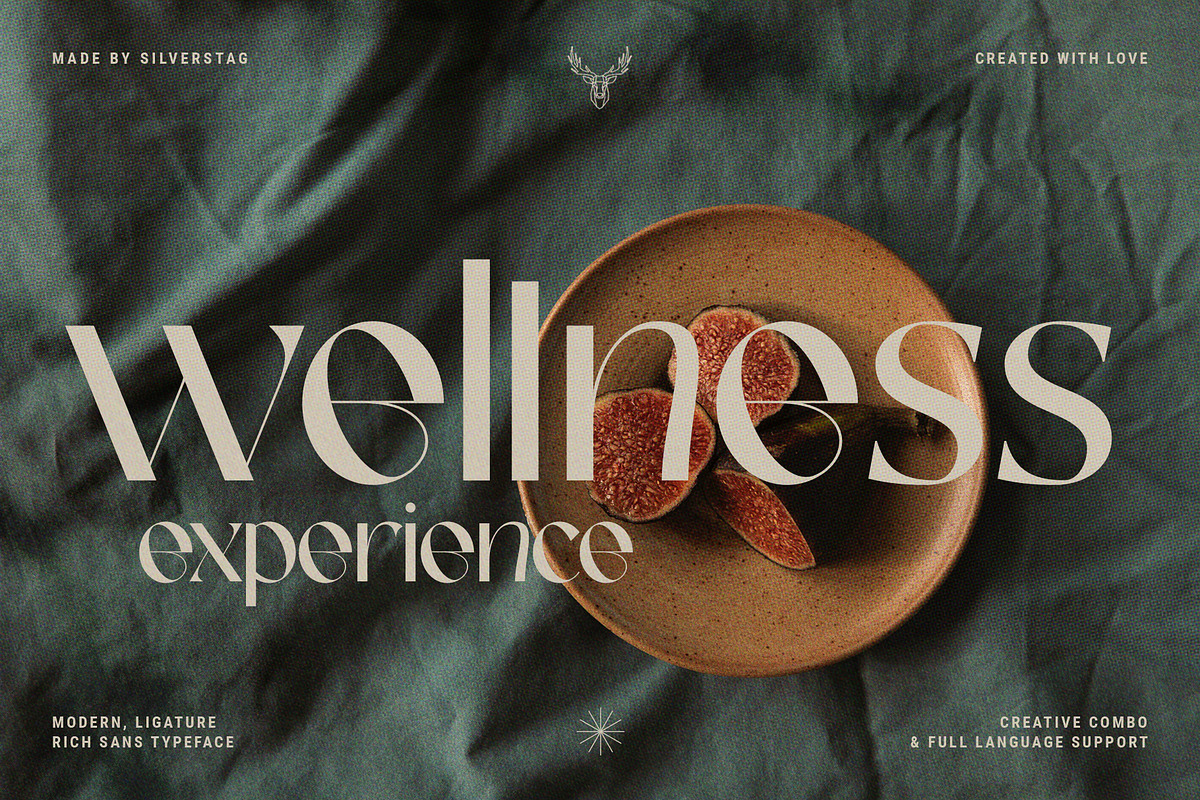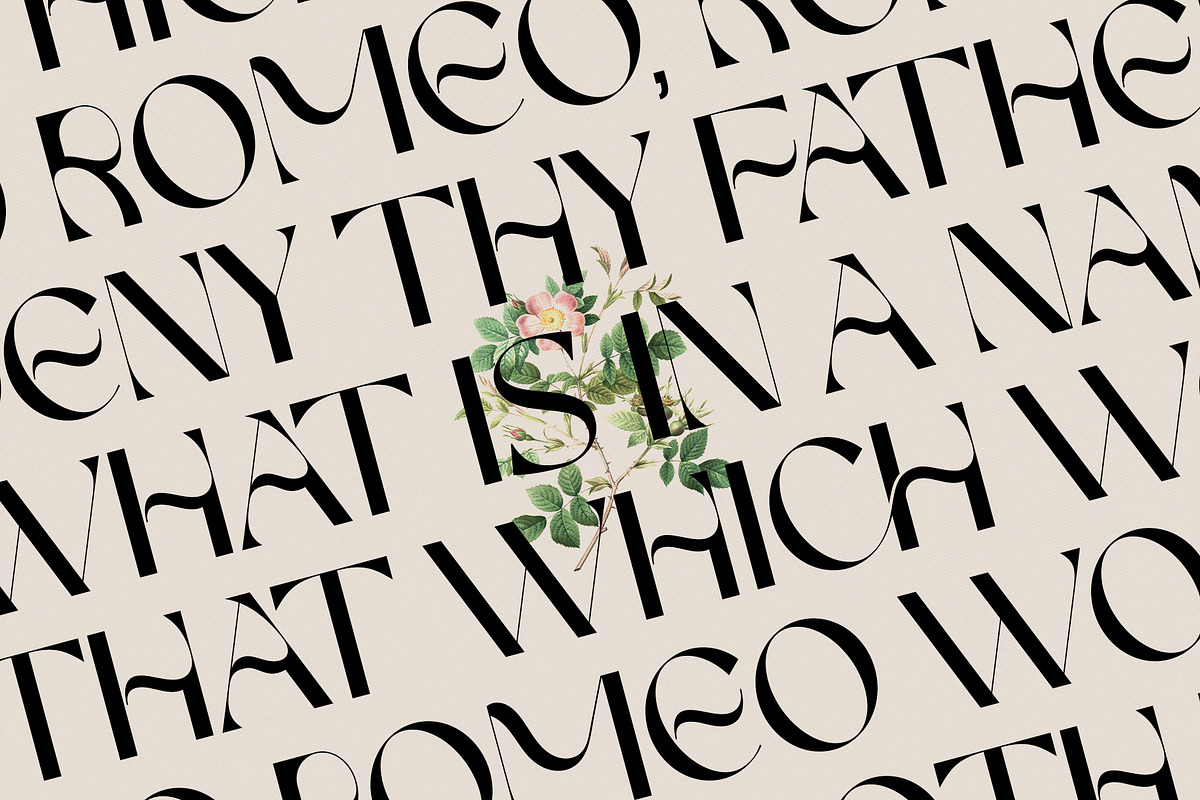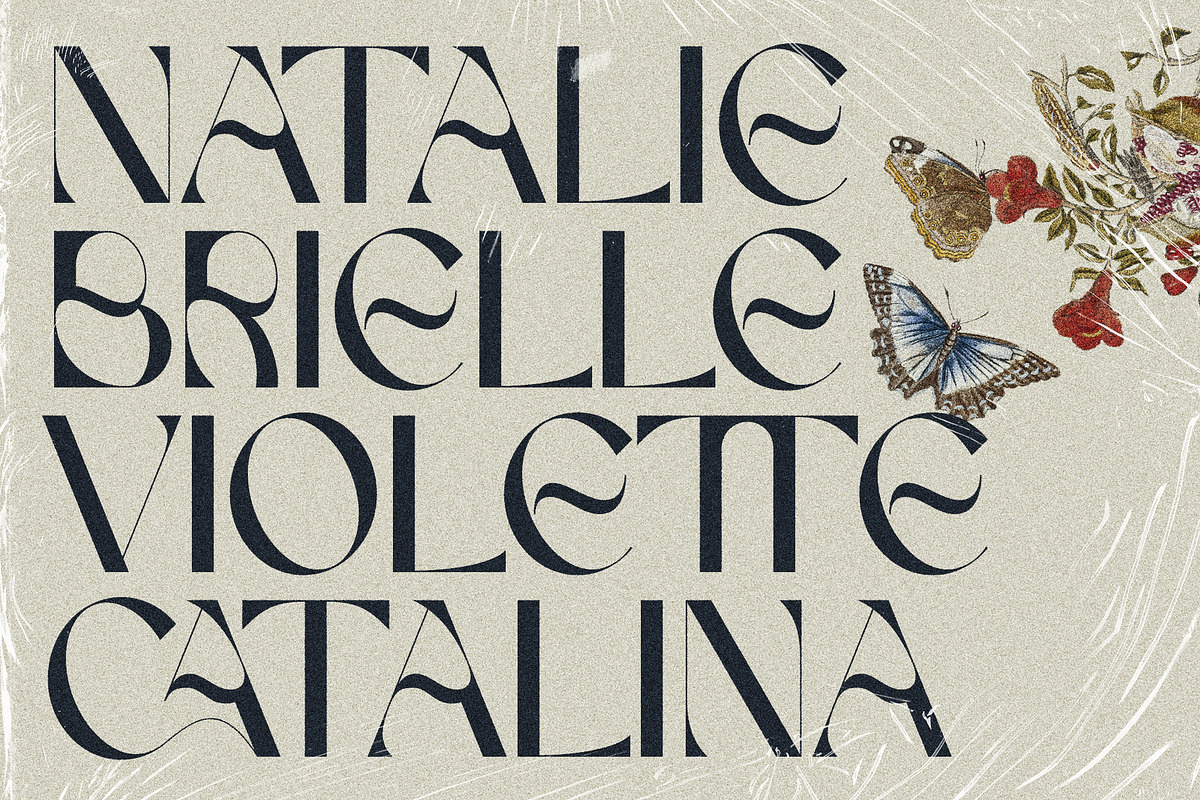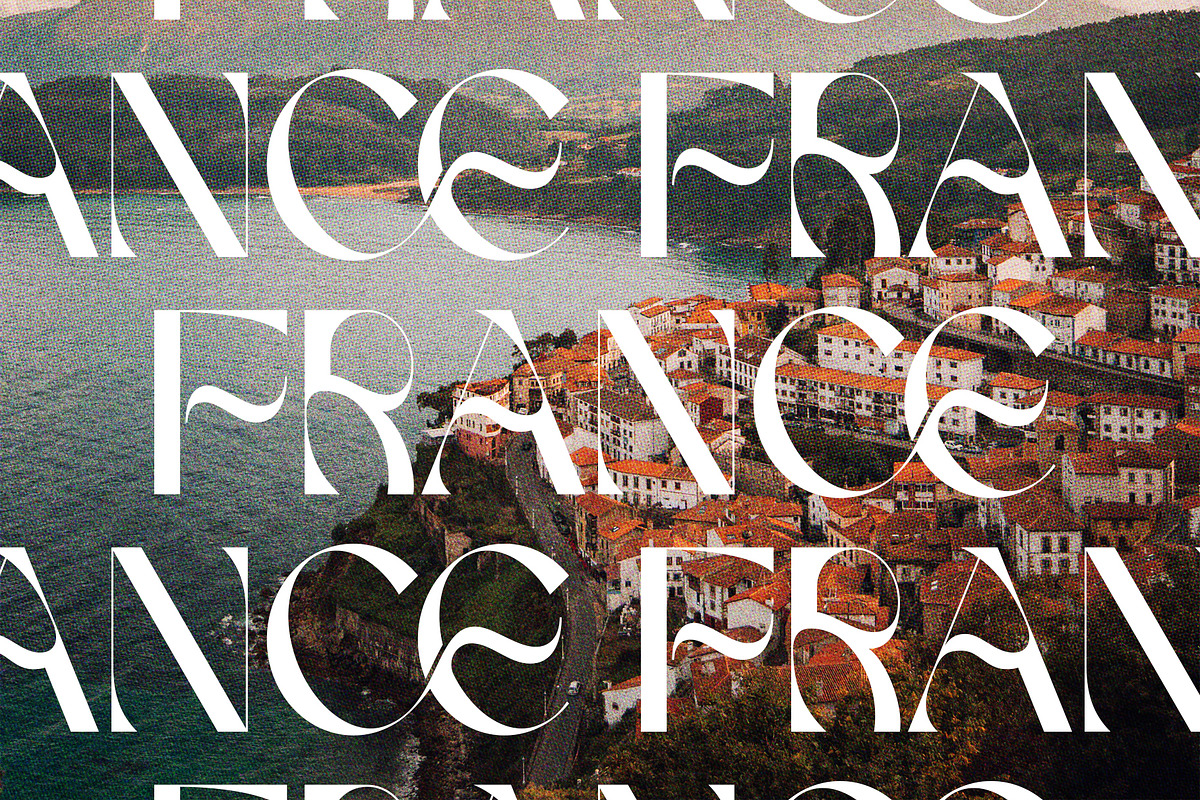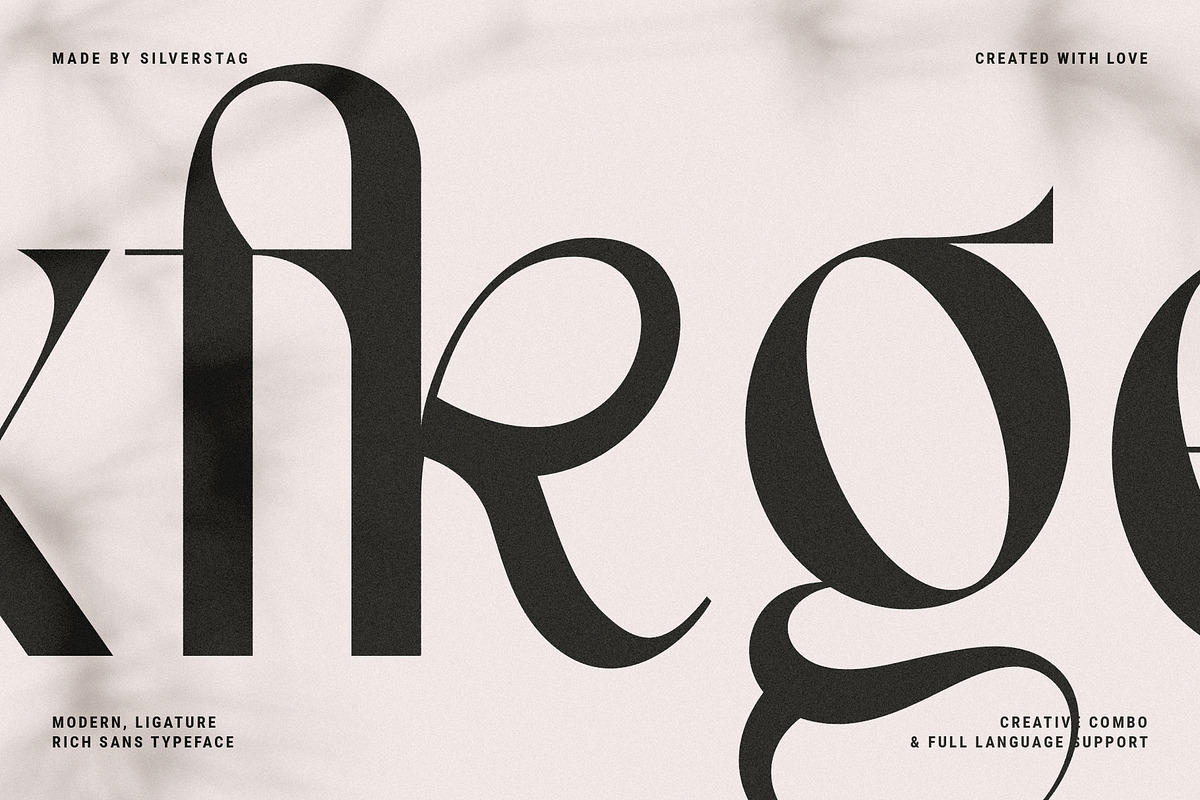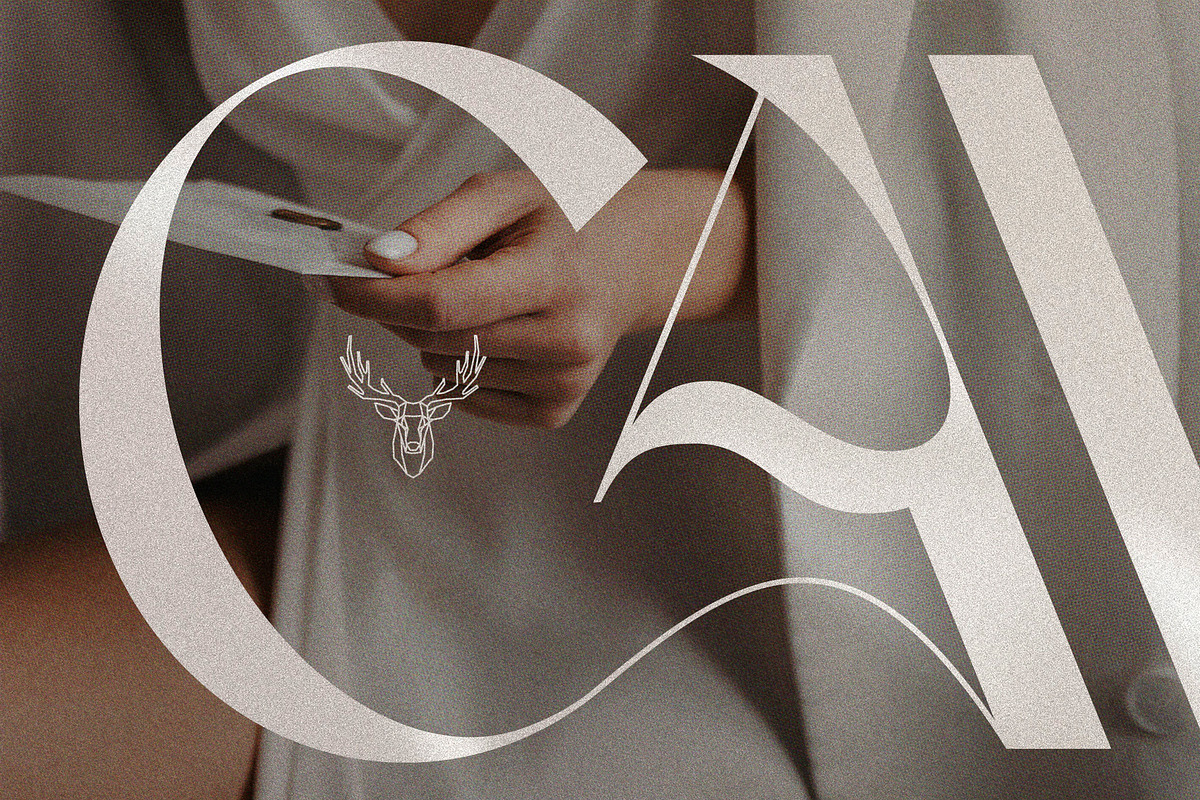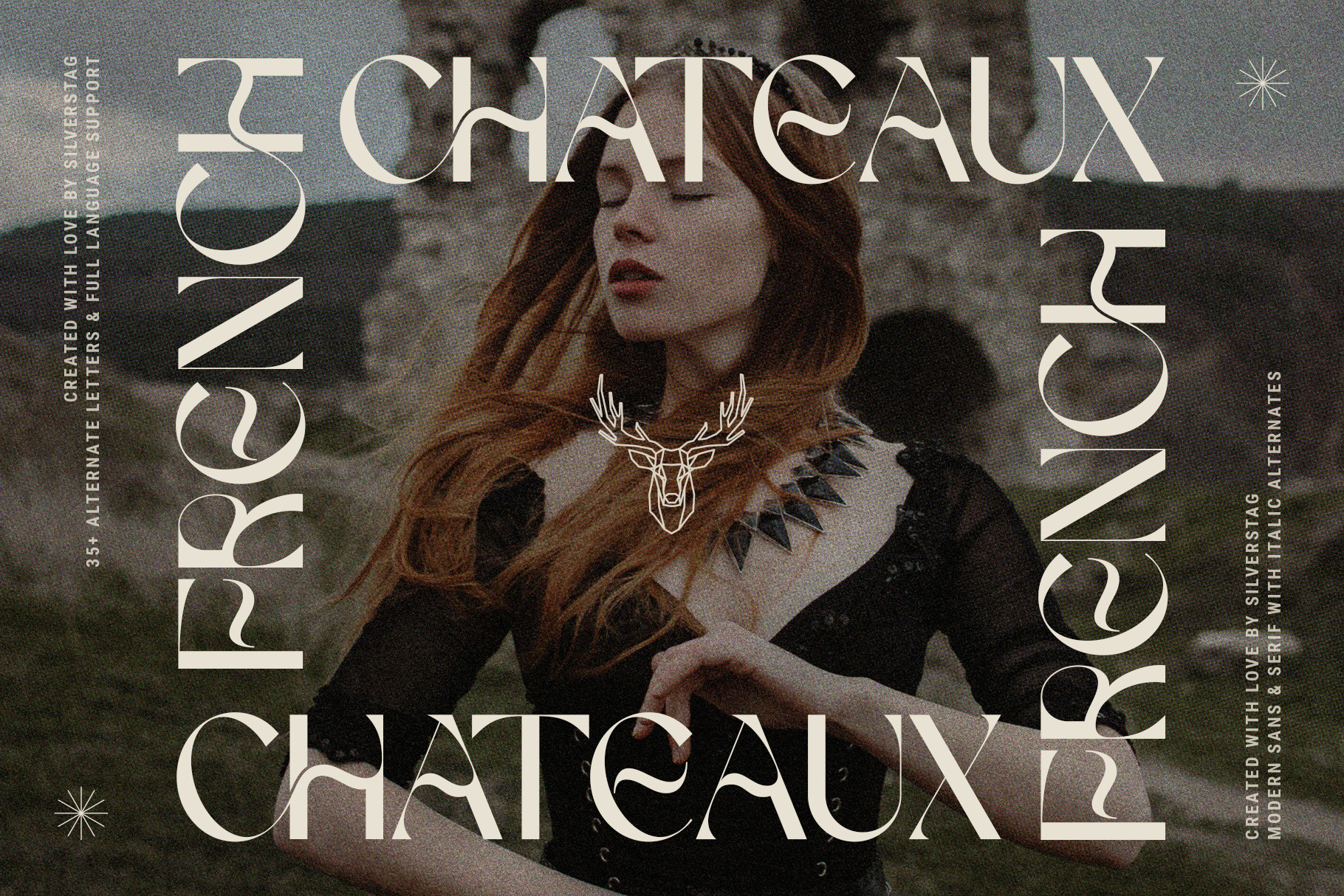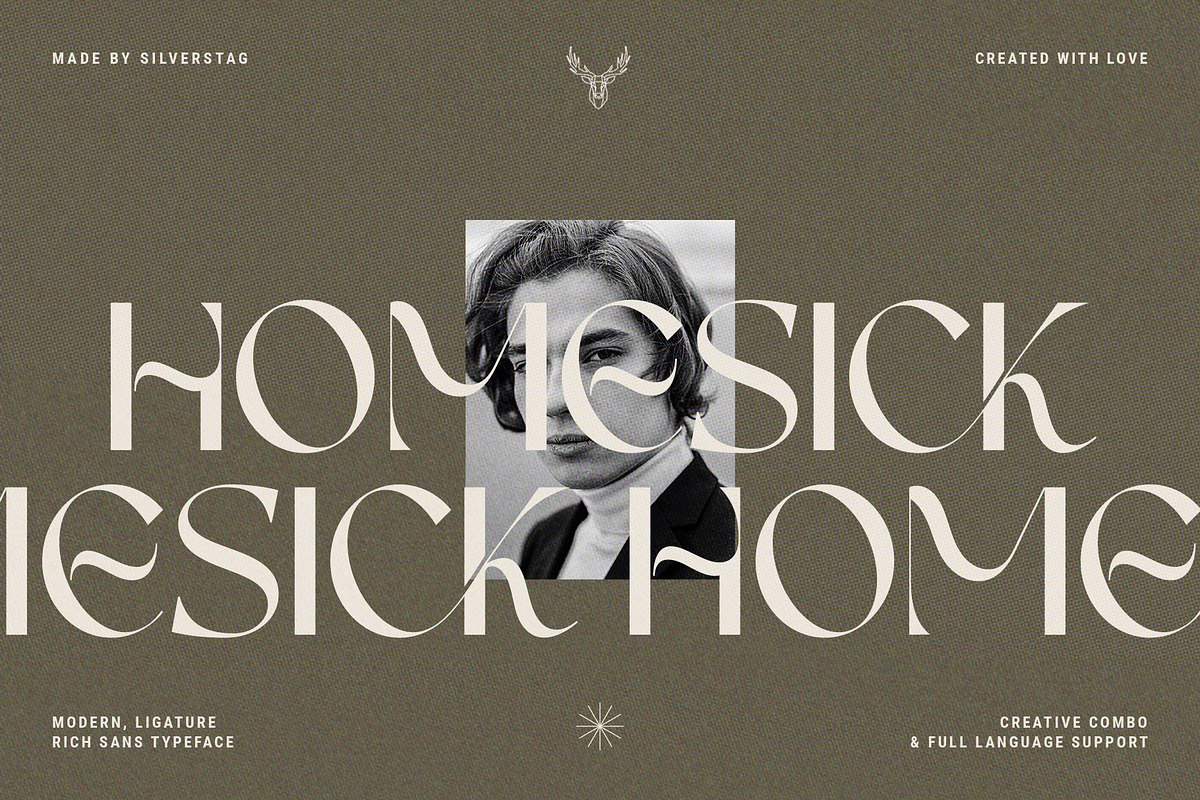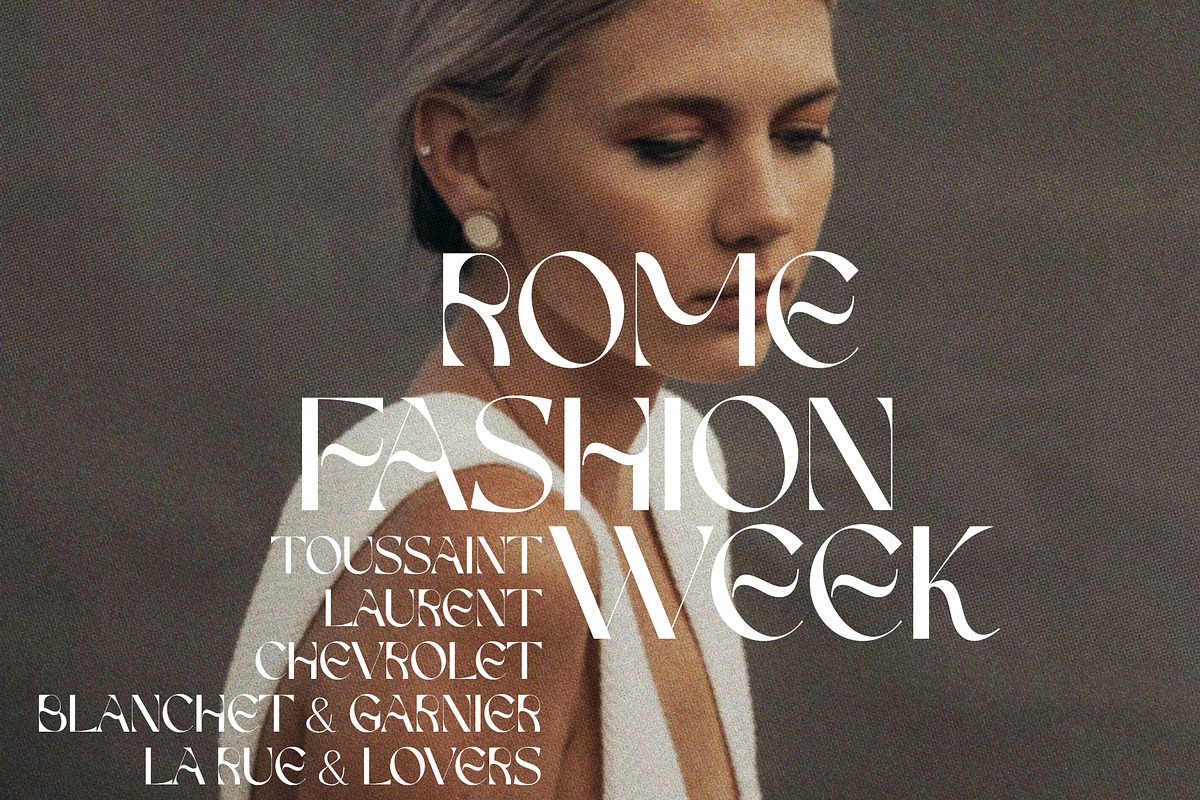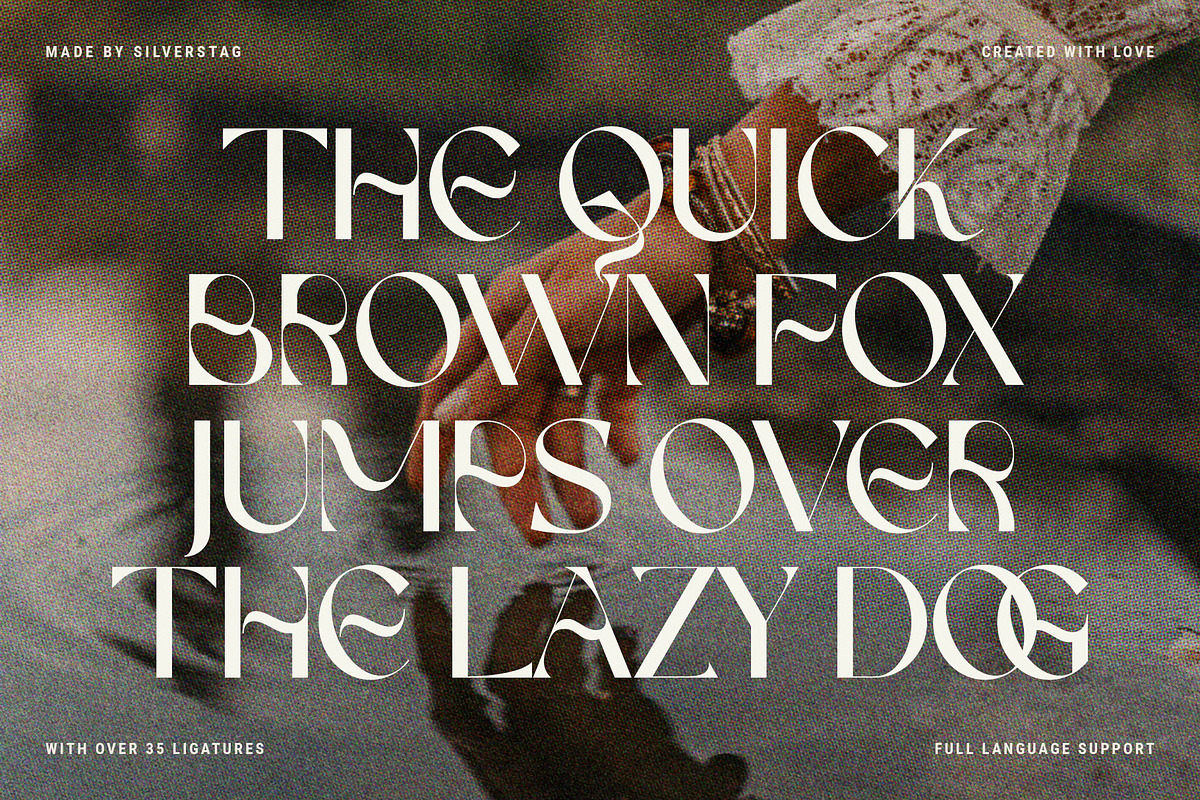
FRENCH CHATEAUX - Chic Display Font
FRENCH CHATEAUX is another font in my collection that was inspired by France. French architecture, vintage typefaces, modern shapes, fashion and their unique lifestyle all had their influence on this font. It comes with over 35 chic ligatures that will work for any kind of a project you might be working on. With contrast lines & curves it will give your design that chic & modern appeal you are looking for. It is perfect for logos, branding, posters, social media & all other creative projects.
- Over 35 unique ligatures
- Numerals & punctuation
- Full language support